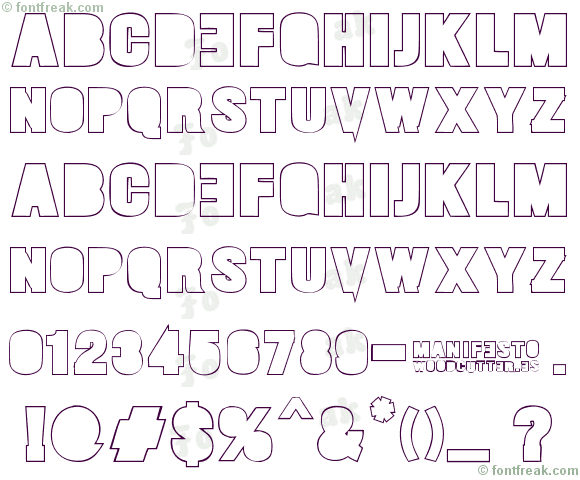
MANIFIESTO
MANIFIESTO, designed by woodcutter Manero, is a striking display typeface that captures attention with its bold and commanding presence. As a decorative font, it features a unique blend of geometric shapes and clean lines, showcasing a strong stroke weight that contributes to its visual impact. The letterforms exhibit minimal contrast, providing a solid, uniform appearance that enhances readability while maintaining a contemporary aesthetic. The spacing is well-balanced, allowing for effective use in various applications without compromising legibility.
This typeface excels in a variety of creative contexts. Its bold character makes it an excellent choice for movie posters, where it can effectively convey drama and excitement. Additionally, MANIFIESTO is perfect for restaurant menus, offering a modern yet approachable feel that can attract diners. It also suits branding projects, particularly for small businesses seeking a distinctive identity, as well as event promotions, such as festivals or art exhibitions, where visual appeal is crucial. Content creators aiming to make their work stand out will find this font adds a touch of originality to social media graphics and presentations.
Targeting graphic designers, small business owners, and content creators alike, MANIFIESTO provides a versatile solution for those looking to make a statement through typography. Its freeware license makes it accessible for various projects, giving users the freedom to explore its potential without financial constraints.
What sets the MANIFIESTO font apart is its ability to blend boldness with versatility, making it a standout choice for anyone looking to elevate their design projects. With the MANIFIESTO font free download, you can effortlessly incorporate this unique typeface into your work, enhancing the visual narrative of your projects and capturing the essence of modern design.